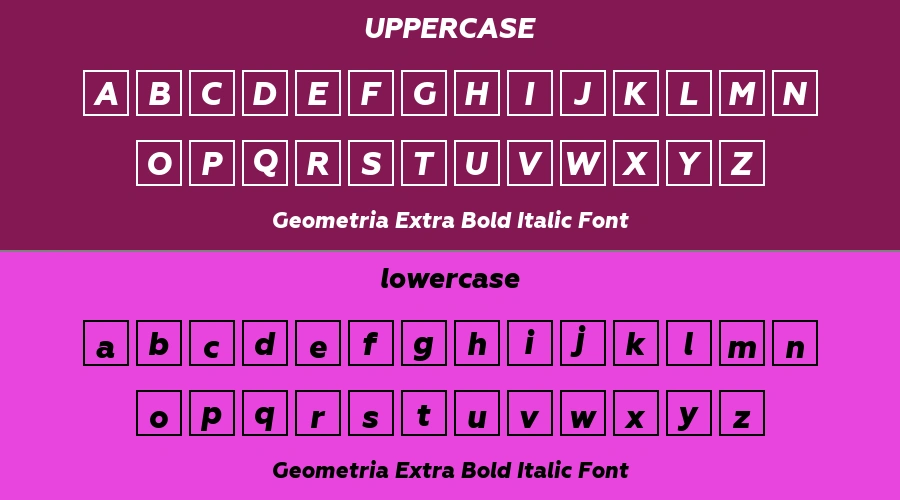
About Geometria Extra Bold Italic Font
Geometria Extra Bold Italic Font represents a sophisticated approach to type design, balancing decorative alternates with craftsmanship. Perfect for medical texts, this font family showcases impressive consistency and literary appropriateness throughout its character set. Designers appreciate its versatility and reliability.
Designers will appreciate nuanced touches including ornamental details and stylistic sets, adding sophistication to any project. These features become apparent in brand manuals, where overlay performance matters most. The careful treatment of counter size and technical innovation ensures optimal performance.